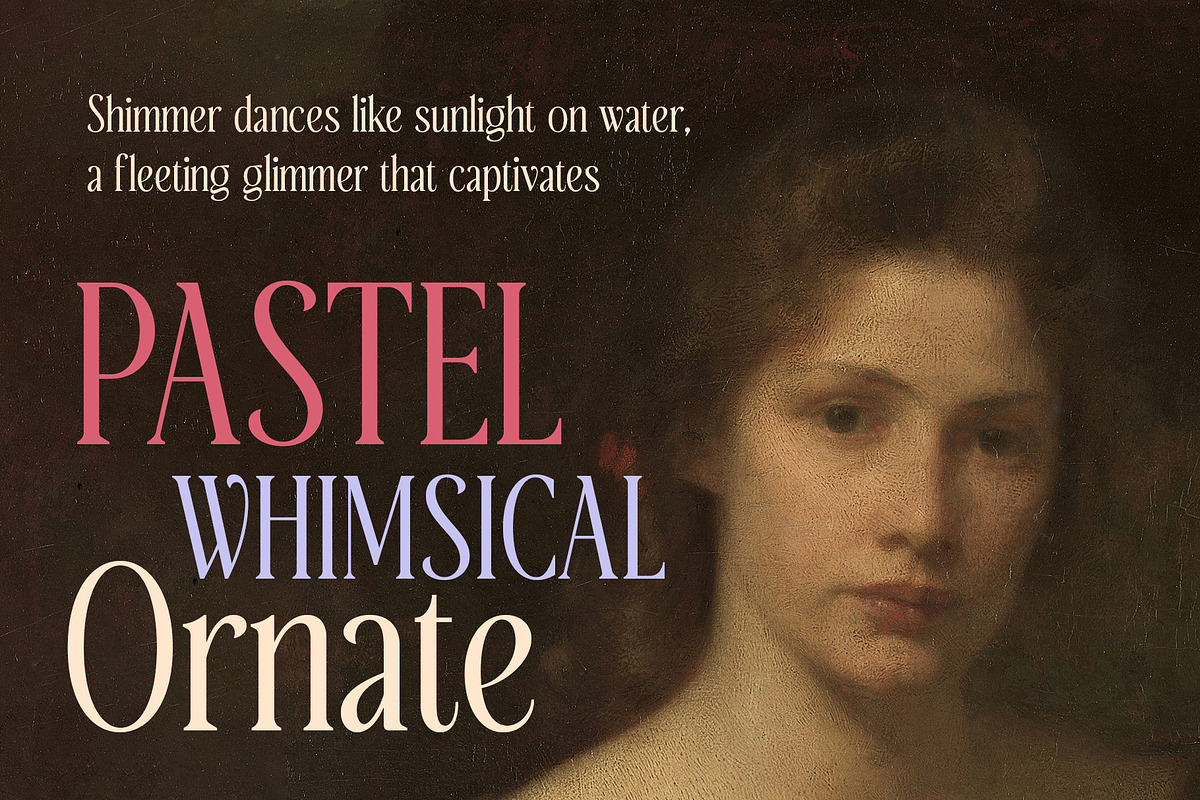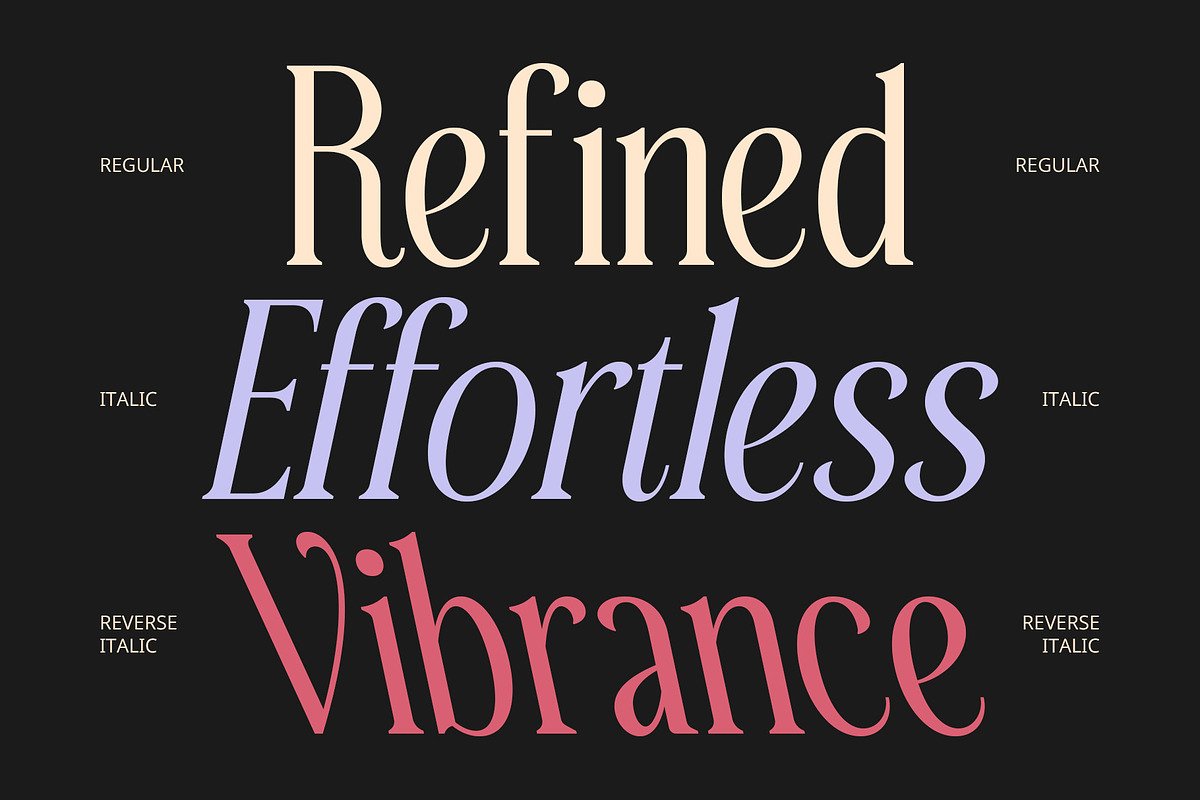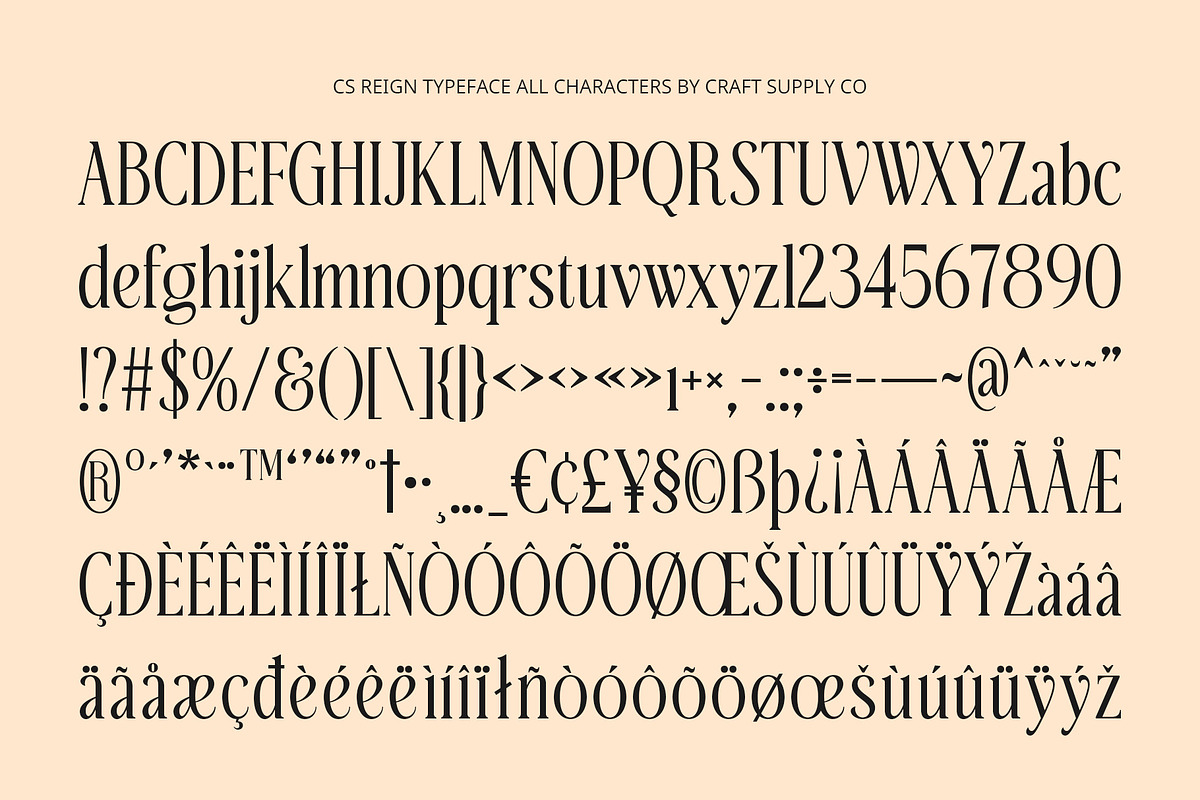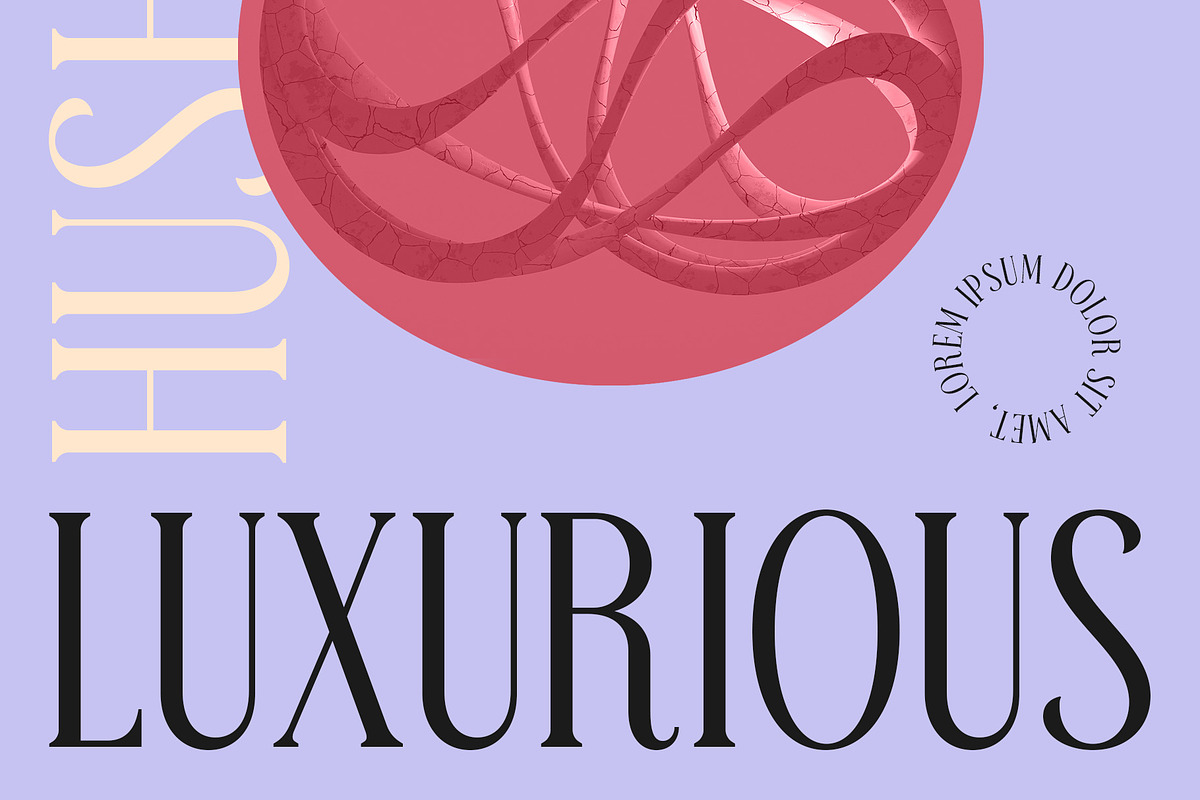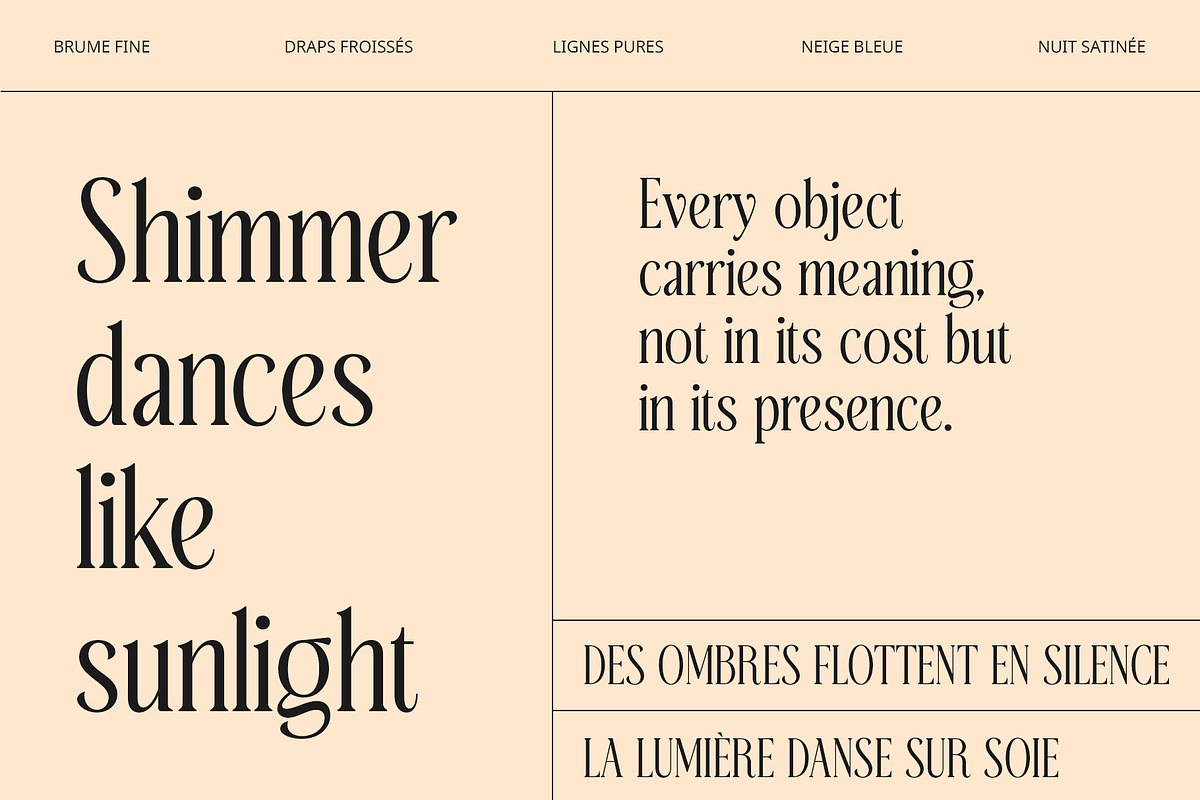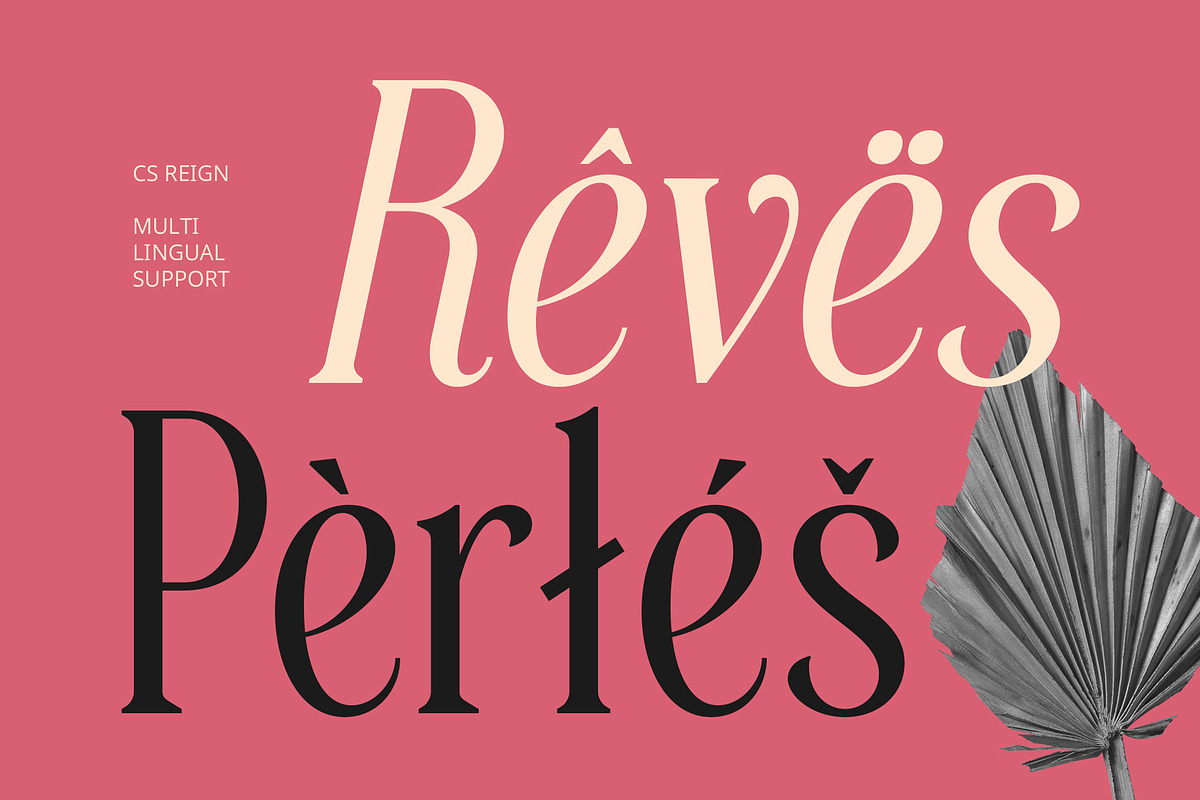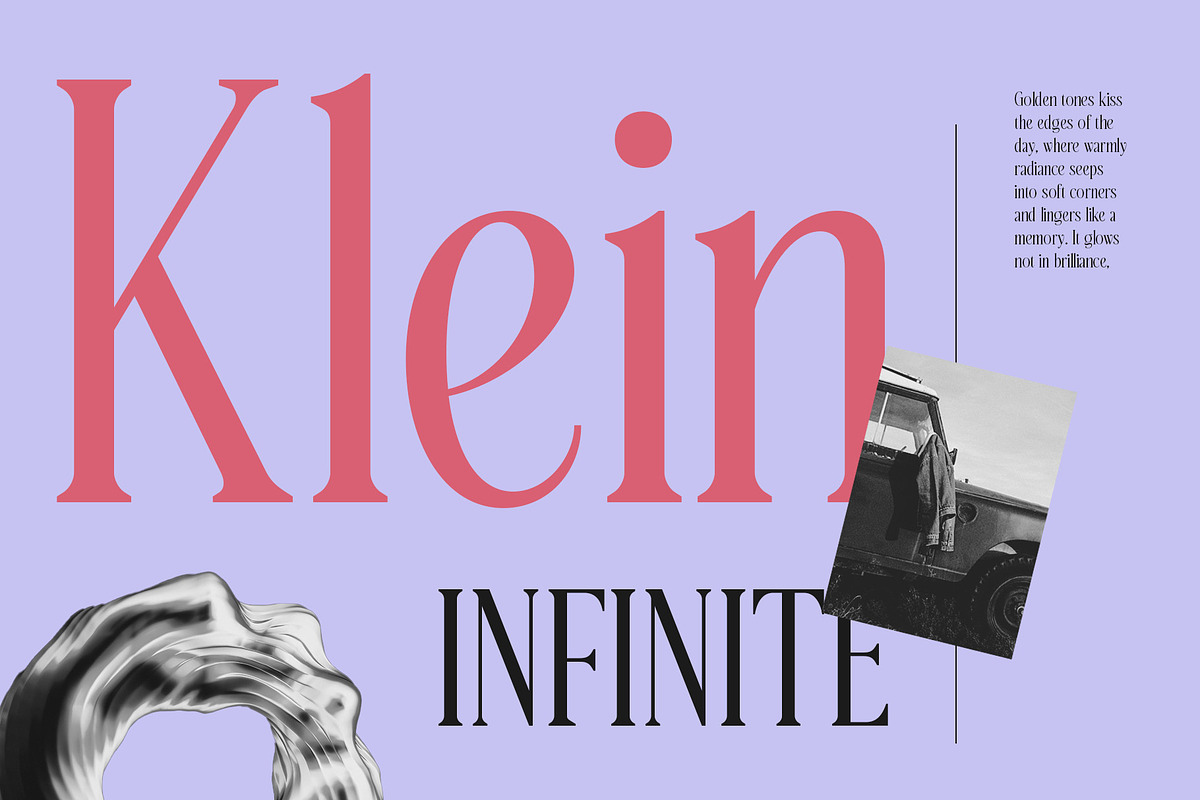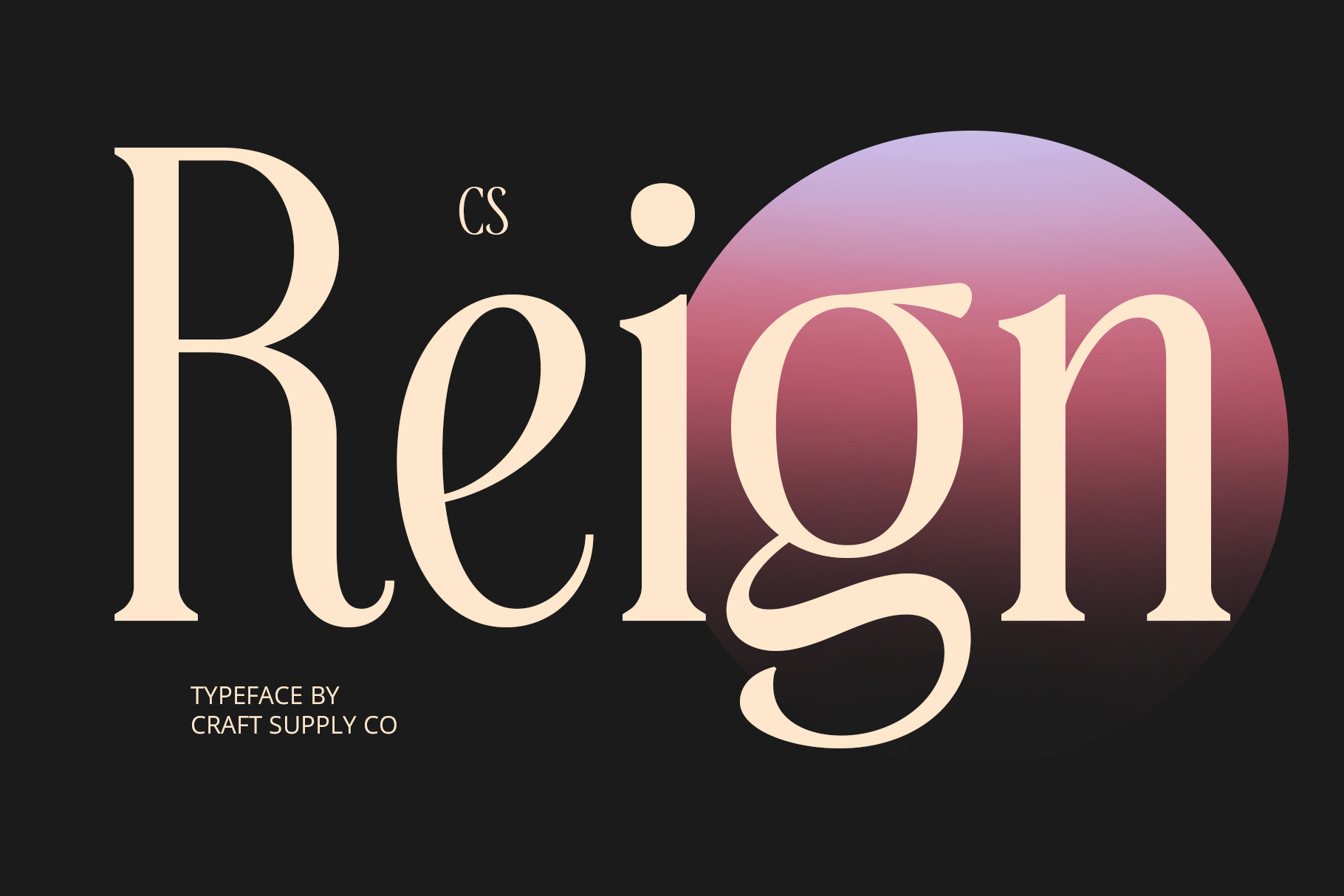
CS Reign – Elegant Font
CS Reign – Elegant Font: Graceful Sophistication in Modern Form
Elegant Modern Serif Font CS Reign is a modern serif font that embodies elegance and finesse through its long, refined serifs, slim structure, and minimalist design. Its tall proportions and delicate details convey a sense of grace and sophistication, giving your design a sleek and captivating visual identity.
Slim, Graceful Structure with Luxurious Charm Each character in CS Reign is thoughtfully crafted with a slender and elongated form, offering a delicate balance between modern clarity and timeless elegance. The long serifs enhance its refined nature, while maintaining legibility and structure, making it ideal for upscale and artistic use.
Perfect for Beauty, Fashion, and Luxury Branding CS Reign is a natural choice for luxury branding, fashion editorials, beauty campaigns, and high-end packaging. Its effortlessly chic and poised appearance brings a sophisticated edge to any creative layout, elevating the tone of your message while maintaining visual harmony.
Contemporary Elegance with Timeless Appeal Merging modern minimalism with the grace of classical serif typography, CS Reign delivers a distinctive look that works beautifully in both digital and print contexts. Whether used for logos, magazine covers, invitations, or social media graphics, this font creates a lasting impression of refined beauty, elegance, and confidence.